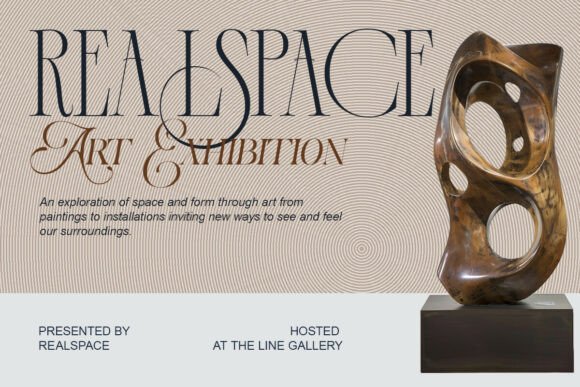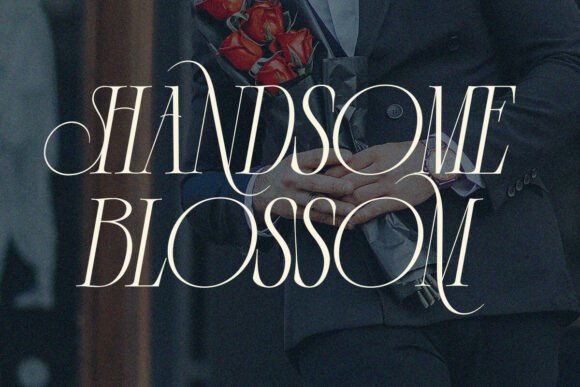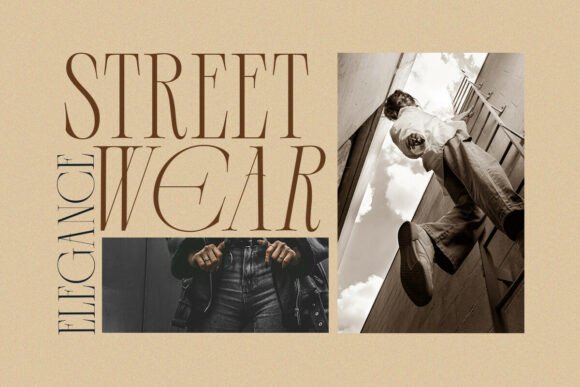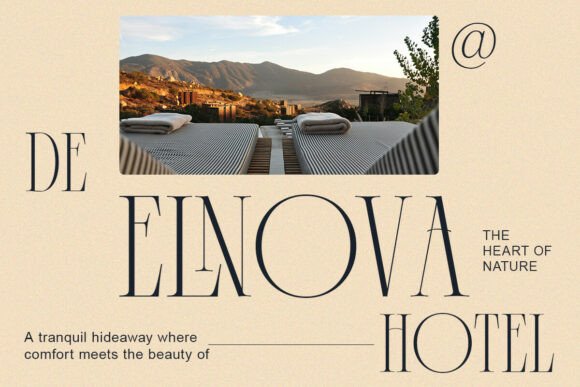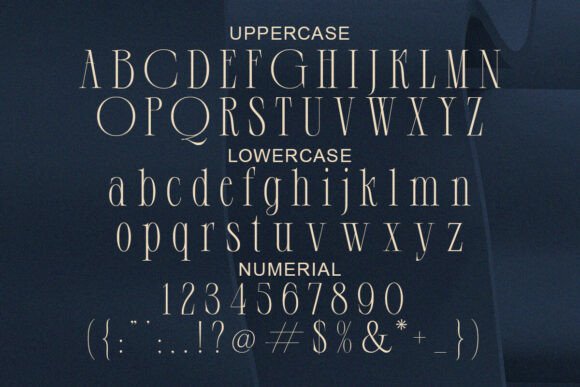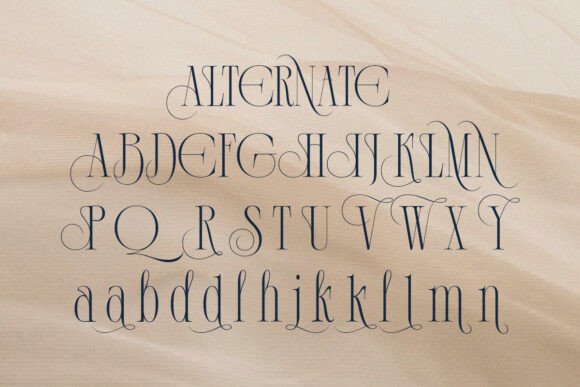
Discover the Elegance of Demeris Font: Elevate Your Designs with Luxury and Sophistication
In the world of typography, a font can make all the difference in conveying the desired message and aesthetic of a brand or design. For those seeking a typeface that exudes elegance, sophistication, and luxury, look no further than Demeris Font. This high-contrast modern serif font is designed to bring a touch of class and refinement to any project, making it the perfect choice for designers and crafters looking to elevate their work.
The Characteristics of Demeris Font
Demeris typeface is characterized by its sharp, tall, and graceful serif design, complete with rich ligatures and a luxurious, minimalist soul. Its tall, elegant letterforms and stylish ligatures make it an ideal choice for premium branding, sophisticated editorial layouts, and timeless visual storytelling. With a focus on confidence, class, and clarity, Demeris Font is the go-to choice for fashion magazines, logos, packaging, and refined digital designs.
Perfect Applications for Demeris Display Serif Typeface
Demeris Font is versatile and can be used in a variety of applications, including:
• Editorial & magazine design: Add a touch of sophistication to your publications with Demeris’ elegant and refined design.
• Branding for luxury fashion & perfume: Convey high-end quality and style with Demeris’ luxurious and modern serif design.
• Wedding & high-end event materials: Make your event planning designs shine with Demeris’ elegant and sophisticated typeface.
• Logo for boutique or couture labels: Create a lasting impression with Demeris’ unique and stylish design.
• Web headers, social media, and more: Elevate your digital presence with Demeris’ versatile and refined typeface.
Why Choose Demeris Font?
With its razor-sharp serifs and elevated proportions, Demeris Font communicates authority, taste, and premium quality at first glance. Here are just a few reasons why designers and crafters choose Demeris:
• Elegance and sophistication: Demeris Font exudes luxury and refinement, making it perfect for high-end designs.
• Versatility: From editorial design to digital applications, Demeris Font is suitable for a wide range of projects.
• Clarity and legibility: With its clear and refined design, Demeris Font ensures that your message is conveyed with clarity and precision.
• Timeless appeal: Demeris Font’s classic design ensures that your work will remain stylish and relevant for years to come.
Using Demeris Font in Your Designs
Whether you’re crafting a sleek logo, designing a luxury lookbook, or setting headlines, Demeris Font is the perfect choice. Here are a few tips for incorporating Demeris into your designs:
• Pair with complementary fonts: Combine Demeris with other fonts to create a unique and visually appealing design.
• Experiment with font sizes and styles: Take advantage of Demeris’ versatility by trying out different font sizes and styles.
• Pay attention to typography: Ensure that your typography is clear and legible, and that Demeris Font is used in a way that enhances your design.
In conclusion, Demeris Font is a luxurious and sophisticated typeface that is perfect for designers and crafters looking to elevate their work. With its elegant design, versatility, and timeless appeal, Demeris is sure to become a go-to choice for a wide range of design applications.